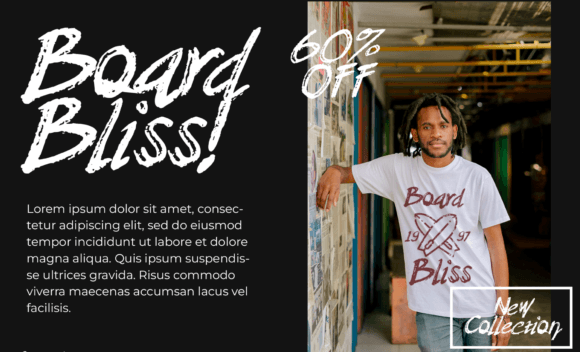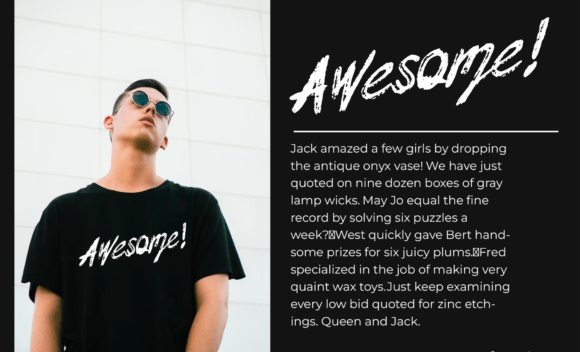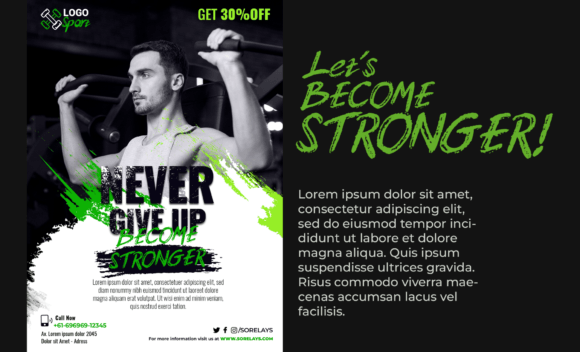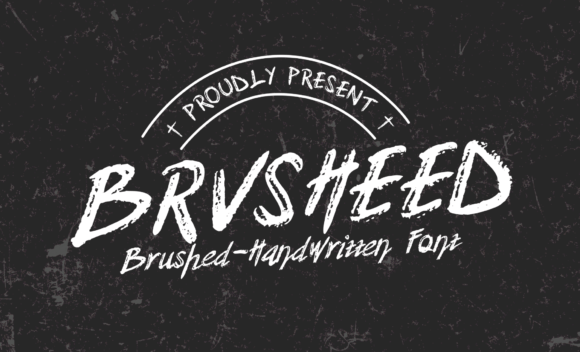
Introducing Brvsheed: The Modern Handwritten Font That Adds Flair to Your Designs
I’ll never forget the time I was working on a project for a client who wanted a font that was both modern and had a personal touch. I scoured the internet, tried out countless fonts, but nothing seemed quite right. That was until I stumbled upon Brvsheed, a game-changing handwritten font that has since become a staple in my design toolkit.
The Birth of Brvsheed
Brvsheed is more than just a font – it’s a statement piece. Its unique brushed texture gives it a distinctive look that’s perfect for adding a touch of personality to any design. But have you ever wondered what inspired this font? Let’s dive into the backstory of Brvsheed.
The designer behind Brvsheed was inspired by the world of street art and graffiti. They wanted to create a font that captured the essence of urban creativity, while still being legible and versatile. The result is a font that’s both modern and timeless.
What I Love About Brvsheed
So, what makes Brvsheed so special? Here are a few things that I love about this amazing font:
• ✨ Unique brushed texture that adds a personal touch to any design
• ✅ Versatile: comes in both Regular and Italic styles
• 🌎 Multilingual support for global usability
• 🎨 Perfect for a variety of design projects, from posters to T-shirt design
Honest Review: The Not-Perfect-but-Almost Section
No font is perfect, and Brvsheed is no exception. Here are a few quirks to keep in mind:
• 🤔 Limited use in very formal or traditional design contexts (this font is best for creative projects)
• ⚠️ Some users may find the brushed texture a bit too distressed for their taste
3. Experiment with OpenType features like ligatures and stylistic alternates to add more flair to your text.
Q: What type of projects is Brvsheed best suited for? A: Brvsheed is perfect for creative projects like posters, marketing materials, T-shirt design, and more.
Q: Does Brvsheed support multilingual text? A: Yes, Brvsheed has multilingual support, making it a great choice for global designs.
Q: How do I access the OpenType features in Brvsheed? A: You can access OpenType features like ligatures and stylistic alternates in design software that supports these features, such as Adobe Photoshop and Illustrator.